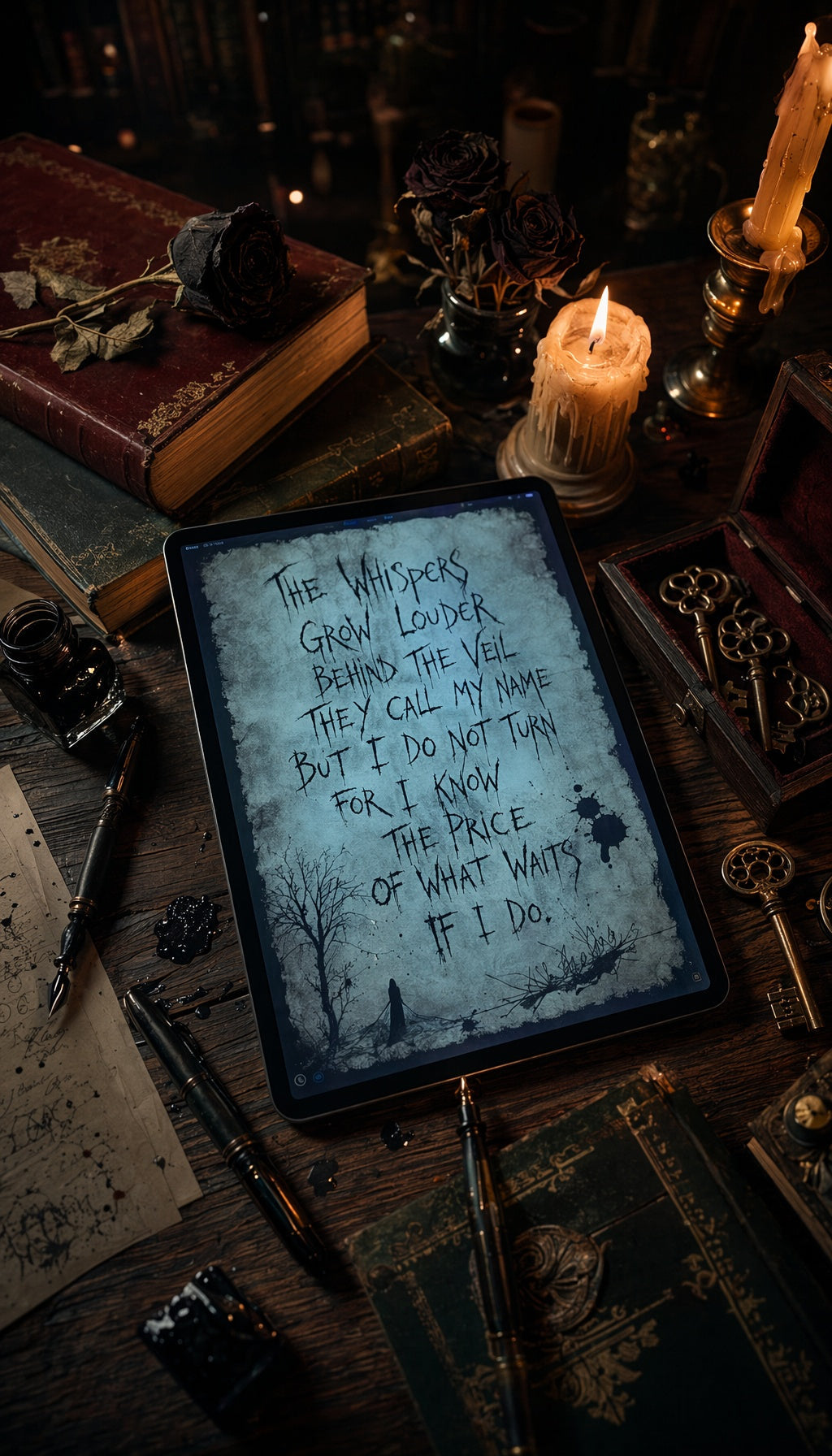
Best Handwriting Font: 12 Fonts That Look Actually Human
Your typed text looks robotic. You know it, I know it, and everyone reading your digital notes knows it too.
Here's what nobody tells you about handwriting fonts: most of them are terrible. They scream "fake" from a mile away with their perfectly uniform letter spacing and identical character shapes. But the right handwriting font? It can make your typed notes look like you spent hours carefully writing them by hand.
I've tested over 50 handwriting fonts across GoodNotes, Notability, and Noteshelf. Some made my notes look like a robot trying to be human. Others were so convincing that people asked if I'd actually written everything by hand.
Why Your Current Font Makes You Look Unprofessional
Most people stick with default system fonts like Helvetica or Times New Roman for their digital notes. Big mistake.
These fonts work great for documents and presentations, but they make your personal notes feel cold and impersonal. When you're journaling, planning, or taking creative notes, you want something that feels more... you.
That's where a good handwriting font changes everything. It adds personality to your digital planning setup while keeping your notes perfectly legible and searchable. Plus, handwritten-style text is easier on the eyes during long reading sessions.
The problem? Finding fonts that actually look handwritten instead of obviously digital.
What Makes a Handwriting Font Look Natural
After testing dozens of options, I've learned what separates convincing handwriting fonts from obvious fakes.
Irregular Letter Spacing
Real handwriting has slight variations in how letters connect and space apart. The best handwriting fonts build these micro-imperfections into their design. Look for fonts where the letter "a" doesn't sit exactly the same distance from "b" every single time.
Multiple Character Variations
Premium handwriting fonts include 2-3 versions of each letter that automatically rotate as you type. This means your "e" looks slightly different each time it appears, just like real handwriting.
Natural Stroke Weight
Your hand naturally varies pressure when writing. Good handwriting fonts mimic this with subtle thickness changes throughout each letter, especially at the beginning and end of strokes.
Realistic Baseline Variation
Nobody writes in perfectly straight lines. Quality handwriting fonts have letters that sit slightly above or below the baseline, creating that natural "written on paper" look.
Top Handwriting Fonts for Digital Planning
Here are the fonts I actually use in my daily digital planning setup, ranked by how natural they look.
1. Amatic SC (Free)
This Google Font strikes the perfect balance between casual and readable. It looks like neat handwriting without being too formal. I use this for headings in my digital planners because it's bold enough to stand out but still feels personal.
Best for: Headers, titles, and emphasis text in GoodNotes
2. Kalam (Free)
Kalam feels like the handwriting of someone who actually cares about legibility. It has just enough imperfection to look natural without sacrificing readability. Perfect for body text in digital journals.
Best for: Daily journal entries and note-taking
3. Caveat (Free)
This font has beautiful connecting strokes that make it look like genuine cursive handwriting. It's elegant without being overly fancy, making it perfect for gratitude journals or personal reflections.
Best for: Cursive-style writing and special occasions
4. Patrick Hand (Free)
Designed to look like a designer's neat handwriting, Patrick Hand is incredibly readable while maintaining that personal touch. It works beautifully for both headers and body text.
Best for: All-purpose handwriting needs
5. Shadows Into Light (Free)
This font captures the look of quick, confident handwriting. It has a slight forward slant that gives it energy and movement, perfect for creative projects and brainstorming sessions.
Best for: Creative notes and idea capture
Premium Handwriting Fonts Worth Buying
While free fonts are great, premium options often include those multiple character variations I mentioned earlier. Here are three worth the investment.
Honey Script
This font includes over 900 glyphs with multiple versions of each character. The automatic substitution makes your text look genuinely handwritten, not typed.
Playlist Script
Designed specifically for digital use, Playlist Script has built-in randomization that varies letter shapes as you type. It's like having slightly different handwriting every day.
Scriptina Pro
A classic script font with modern improvements. The pro version includes contextual alternates that change letter shapes based on surrounding characters, creating incredibly natural-looking text.